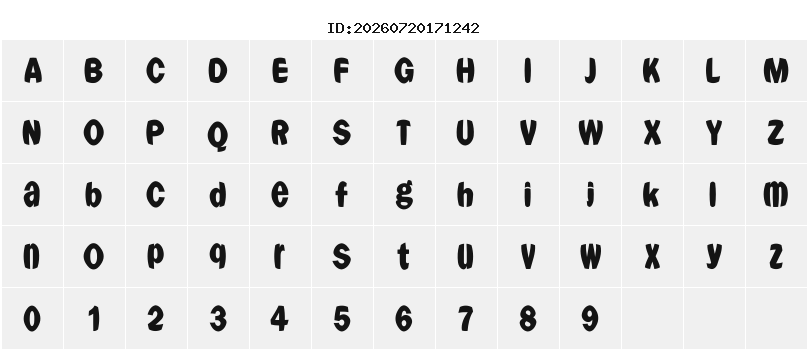
• Font Name: FranklySpokenFS
• Full Font Name: FranklySpokenFS
• Version: 1.0 2002-07-31
About FranklySpokenFS.ttf
FranklySpokenFS.ttf is a modern, elegant sans-serif font designed for ultimate readability and visual harmony. Perfect for branding, headlines, web design, and print materials.